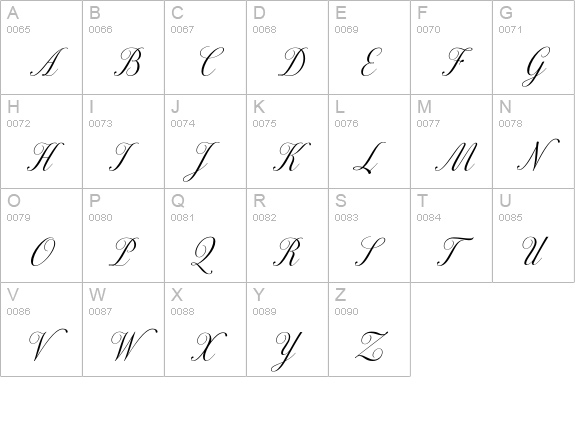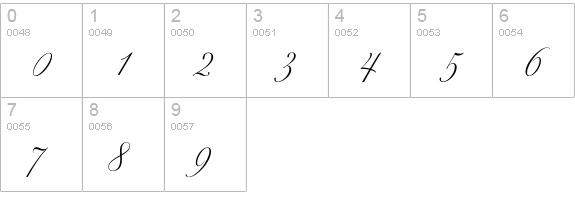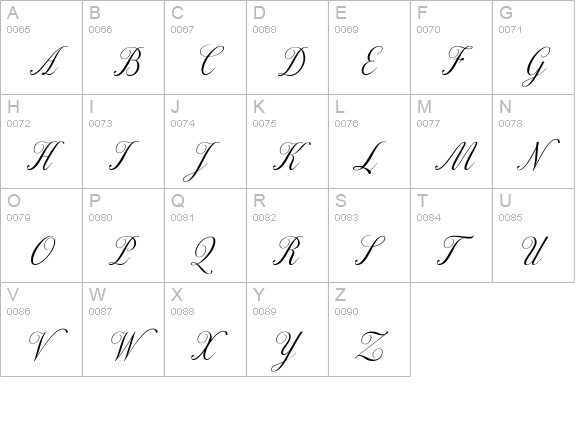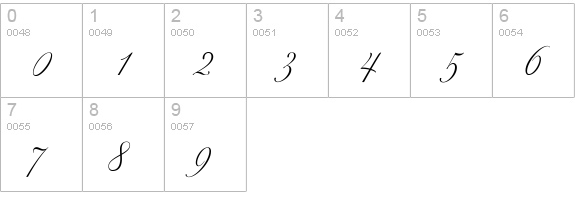
ExcelsiorScript Font Details
ExcelsiorScript font is a beautifully crafted typeface that exudes elegance and sophistication. Its graceful curves and flowing lines make it perfect for adding a touch of luxury to any design project. Whether you're working on invitations, branding materials, or any other creative endeavor, ExcelsiorScript font will surely elevate your work to the next level. What's even better is that ExcelsiorScript font is completely free to download at FontsMarket.com. Yes, you read that right – this stunning font can be yours at no cost at all. So go ahead and enhance your designs with the timeless beauty of ExcelsiorScript font today!